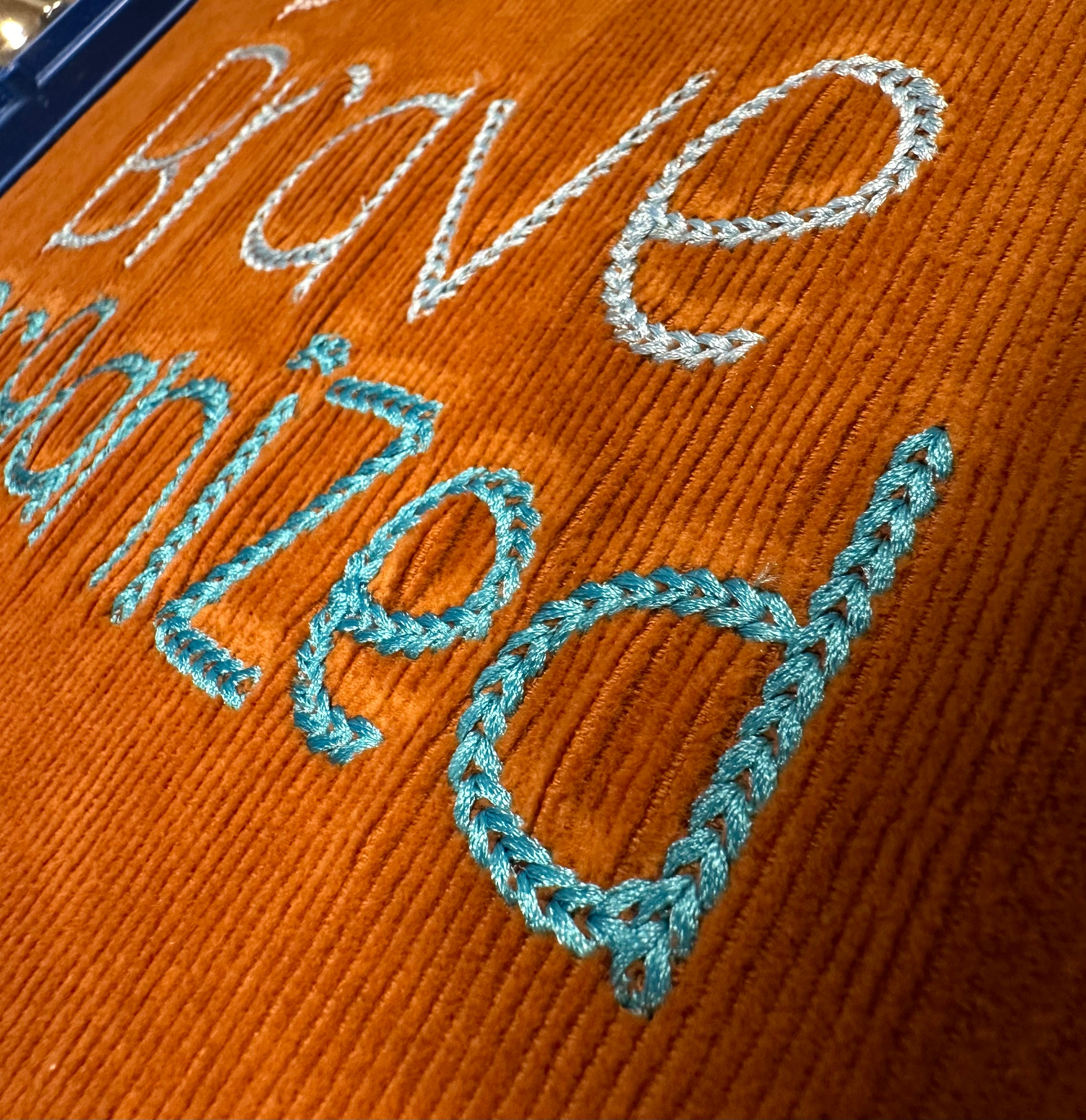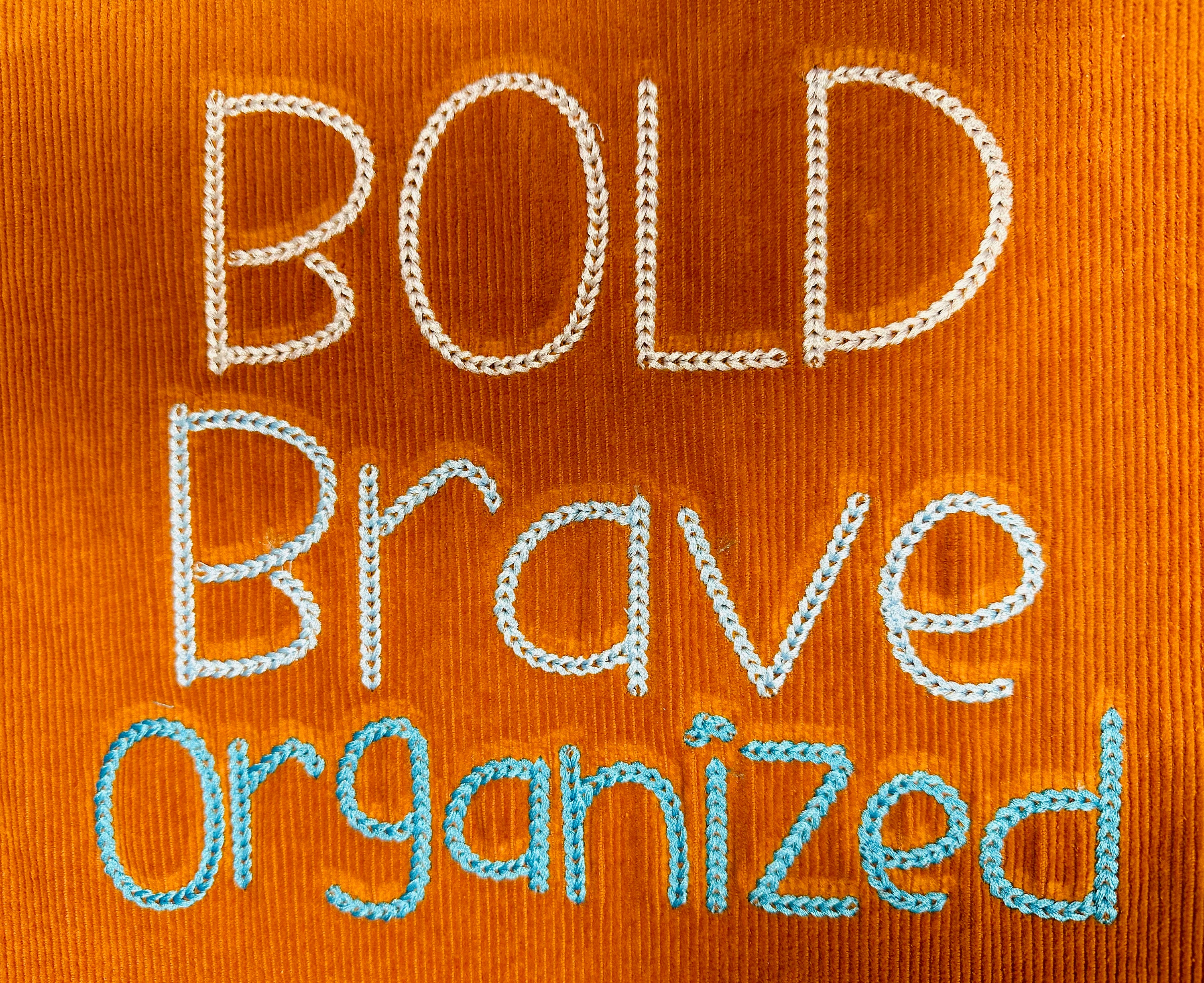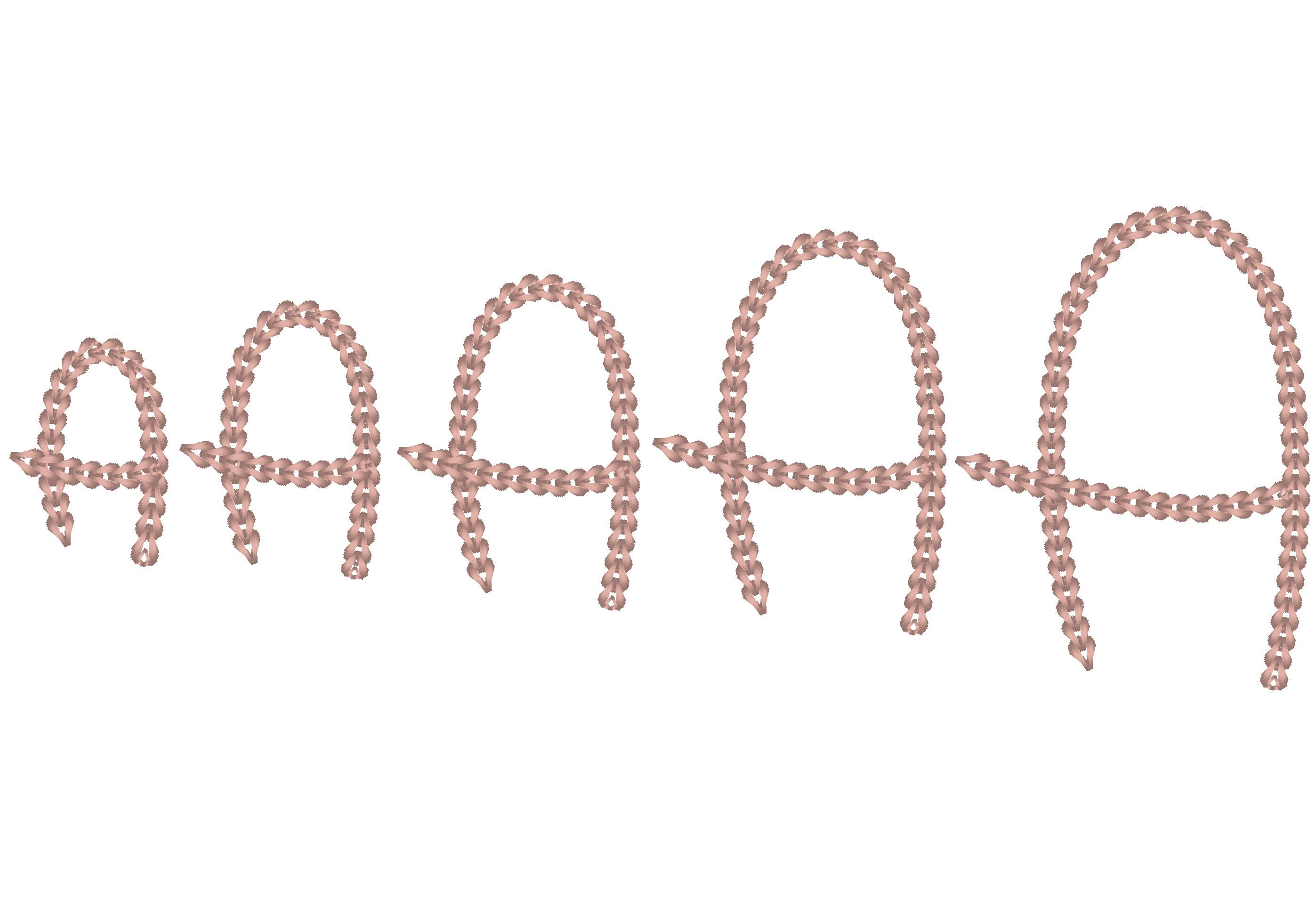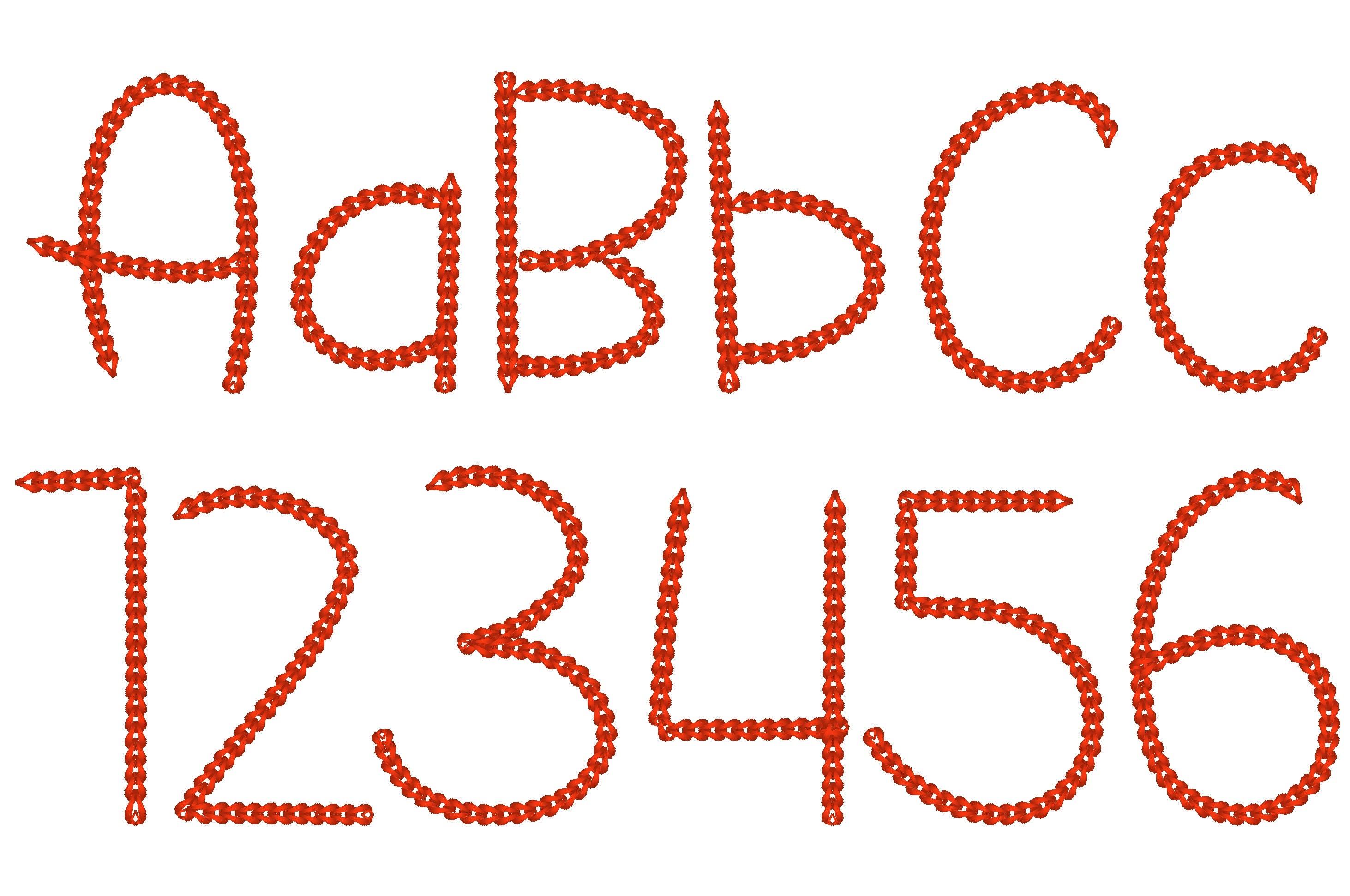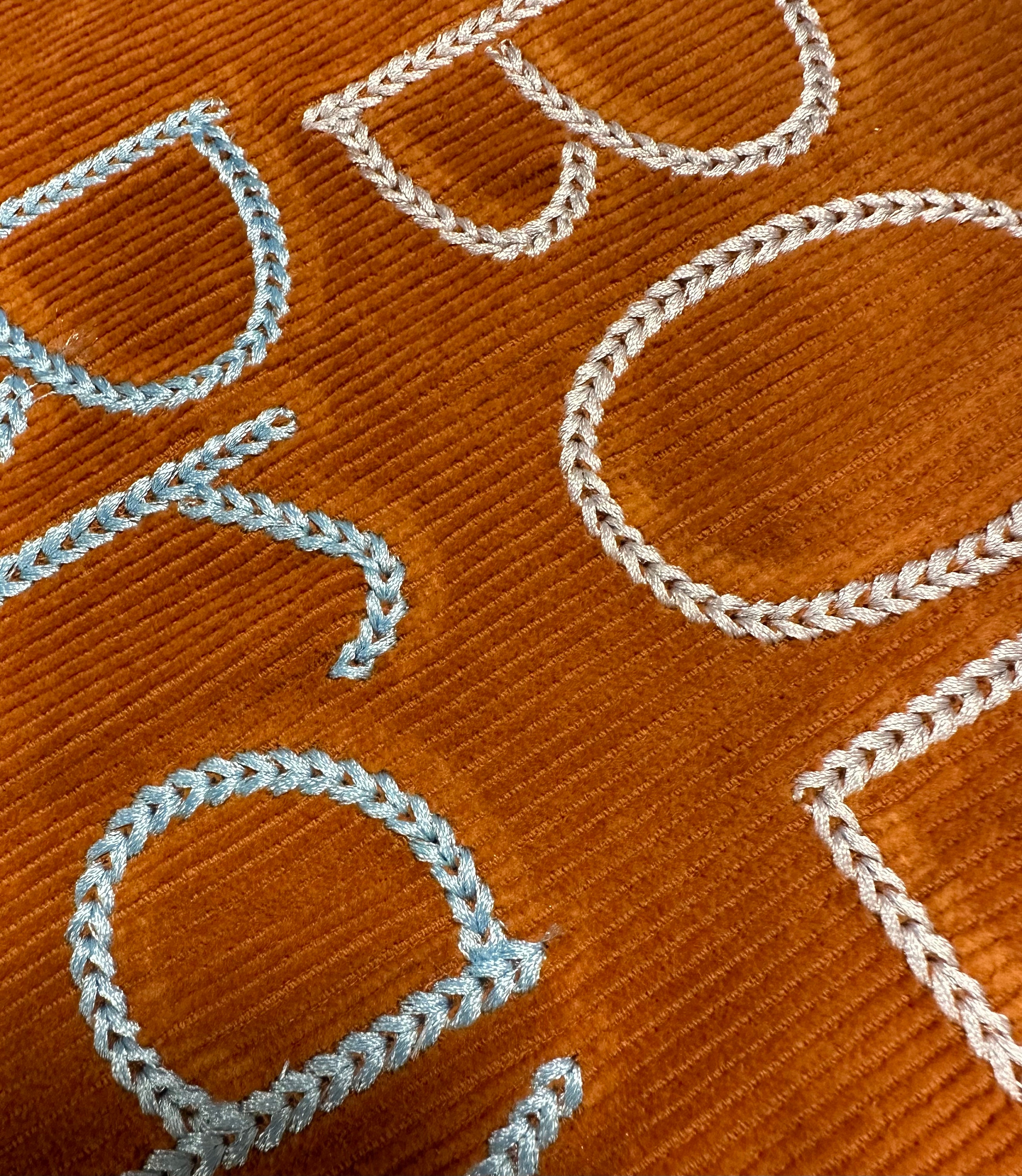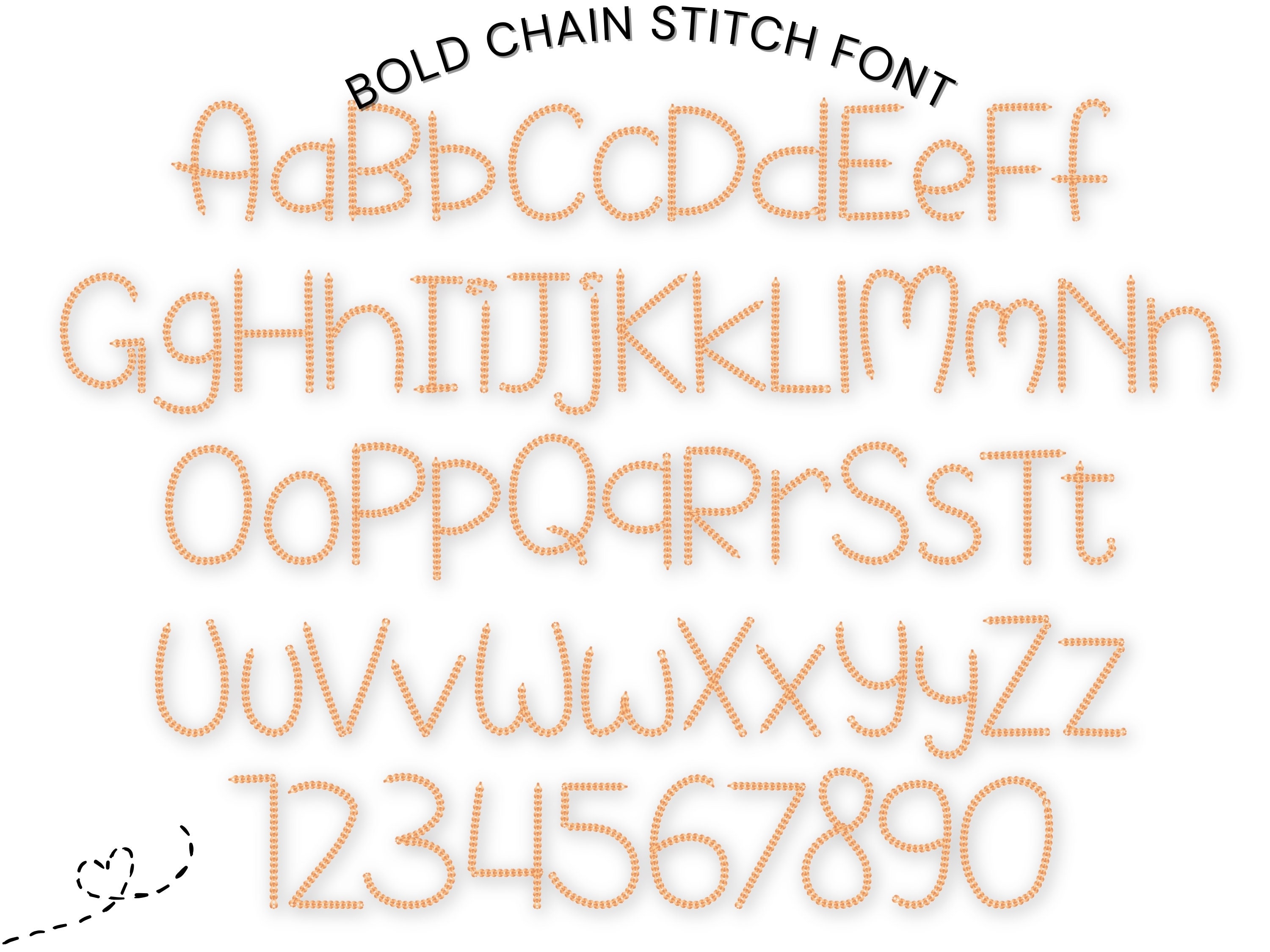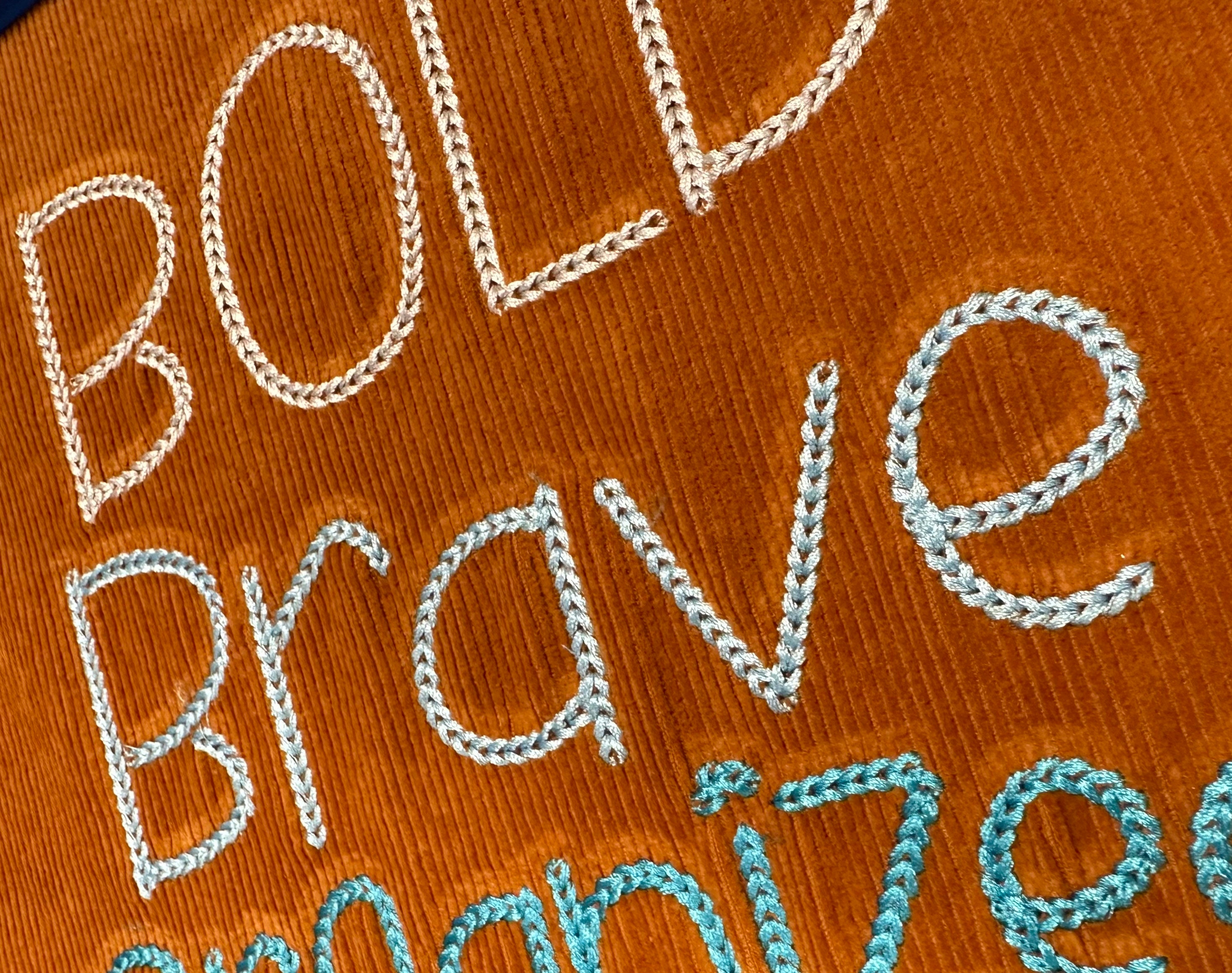
Bold Authentic Chain stitch FONT machine embroidery designs in alphabet letters knit sweater handmade effect chain name, BX included
Whole alphabet A-Z uppercase and lowercase letters, and numbers 0-9.